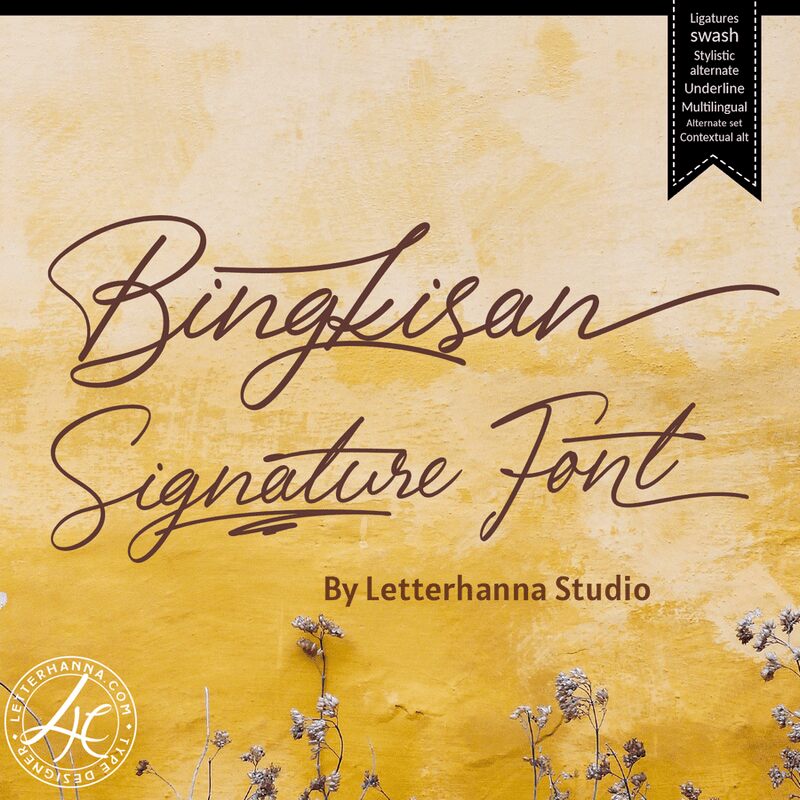
Bingkisan, designed by Letterhanna Type Foundry, is a captivating signature-style, handwritten font that exudes a sense of elegance and effortless charm. Its light, fluid strokes and whimsical flourishes create a visually striking and distinctive aesthetic, evoking a sense of warmth and personal expression.
This font's versatility makes it an ideal choice for a wide range of design applications, from wedding stationery and invitations to branding, packaging, and editorial layouts. Its natural, organic flow lends itself beautifully to projects that require a touch of sophistication and a personal touch, allowing designers to elevate their designs with a truly unique and memorable typographic element.